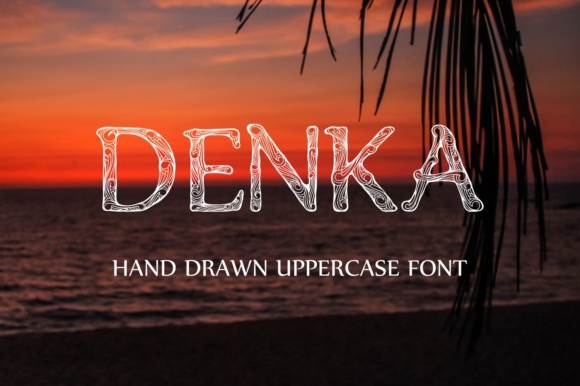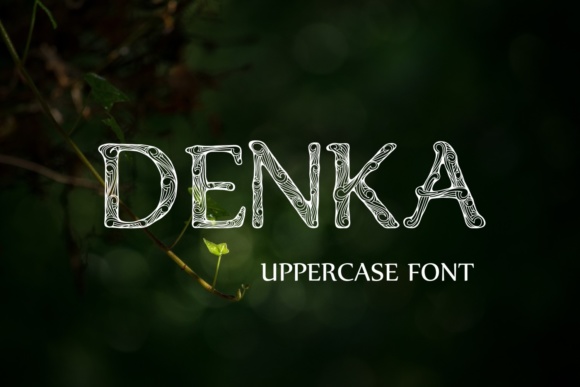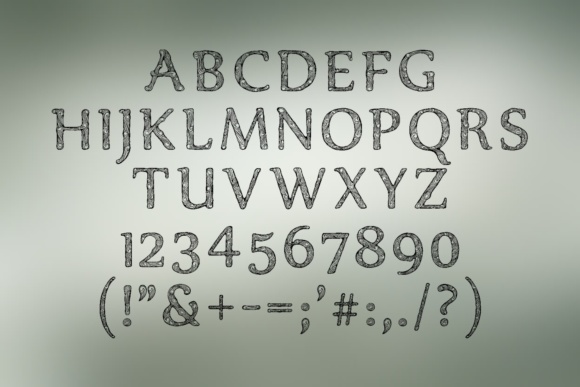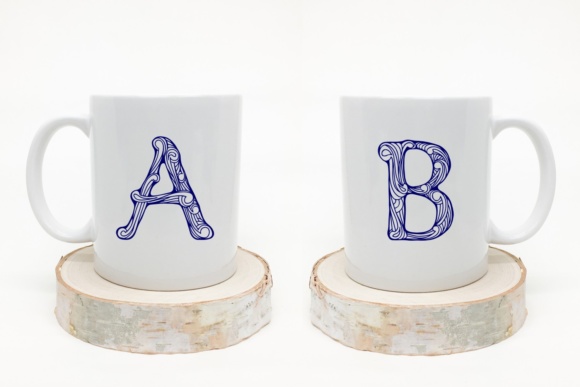
Introducing Denka Font: Elevate Your Designs with Elegance and Sophistication
Are you tired of using the same old fonts in your designs? Do you want to add a touch of class and ornate appeal to your projects? Look no further than Denka Font, a beautifully drawn decorative font that’s sure to get noticed. In this article, we’ll take a closer look at Denka Font, its features, and how you can use it to take your designs to the next level.
What is Denka Font?
Denka Font is a decorative font that’s designed to add a touch of elegance and sophistication to your designs. With its beautifully drawn letters, Denka Font is perfect for designs that need to stand out from the crowd. Whether you’re working on a branding project, a wedding invitation, or a packaging design, Denka Font is the perfect choice.
Key Features of Denka Font
So, what makes Denka Font so special? Here are some of its key features:
- Beautifully drawn letters: Denka Font features beautifully drawn letters that are sure to impress. Each letter is carefully crafted to ensure that it’s both elegant and legible.
- Ornate appeal: Denka Font has an ornate appeal that’s perfect for designs that need to add a touch of class and sophistication.
- Highly versatile: Denka Font is highly versatile and can be used in a variety of designs, from branding and advertising to packaging and wedding invitations.
- Easily readable: Despite its ornate appeal, Denka Font is easily readable, making it perfect for designs that need to communicate a message clearly.
How to Use Denka Font in Your Designs
Now that we’ve covered the features of Denka Font, let’s take a look at how you can use it in your designs. Here are some ideas to get you started:
- Branding and advertising: Use Denka Font to add a touch of elegance and sophistication to your branding and advertising designs.
- Wedding invitations: Denka Font is perfect for wedding invitations, adding a touch of class and romance to your designs.
- Packaging design: Use Denka Font to add a touch of elegance and sophistication to your packaging designs.
- Signage and display: Denka Font is perfect for signage and display designs, where its ornate appeal can really shine.
Tips for Using Denka Font Effectively
Here are some tips for using Denka Font effectively in your designs:
- Use it sparingly: Denka Font is a decorative font, so use it sparingly to avoid overwhelming your design.
- Pair it with a simple font: Pair Denka Font with a simple font to create contrast and make your design more readable.
- Experiment with different sizes: Experiment with different sizes of Denka Font to create visual interest and hierarchy in your design.
In conclusion, Denka Font is a beautifully drawn decorative font that’s perfect for designs that need to get noticed. With its ornate appeal and highly versatile design, Denka Font is the perfect choice for adding a touch of class and sophistication to your projects. Whether you’re a designer, crafter, or DIY enthusiast, Denka Font is sure to become a valuable addition to your font collection.